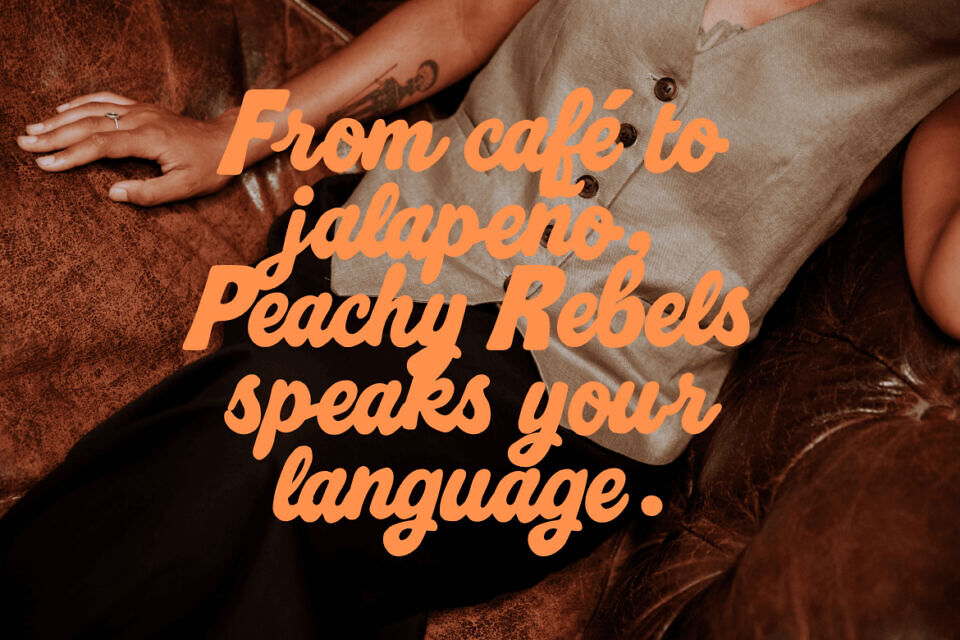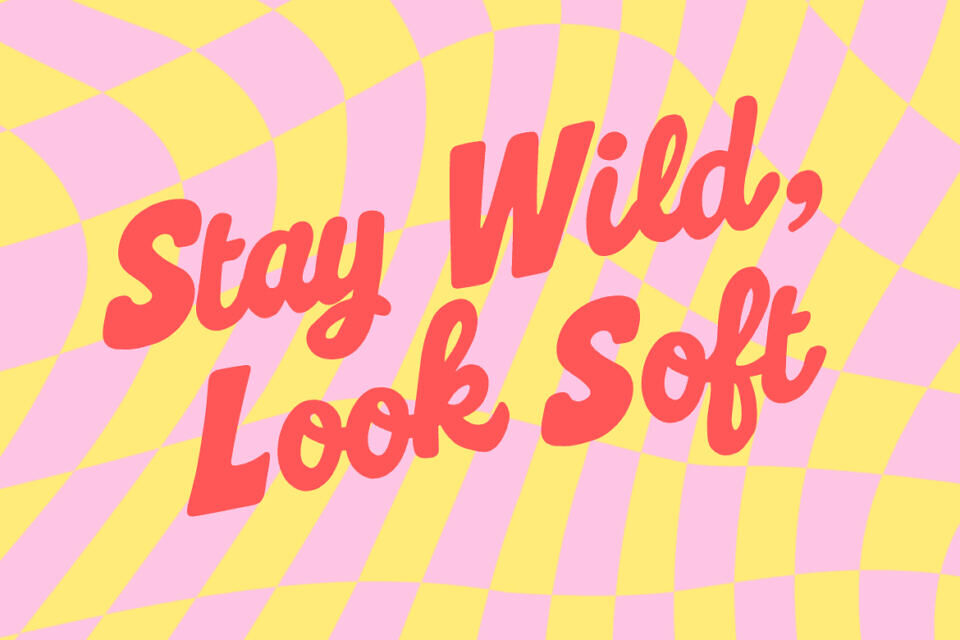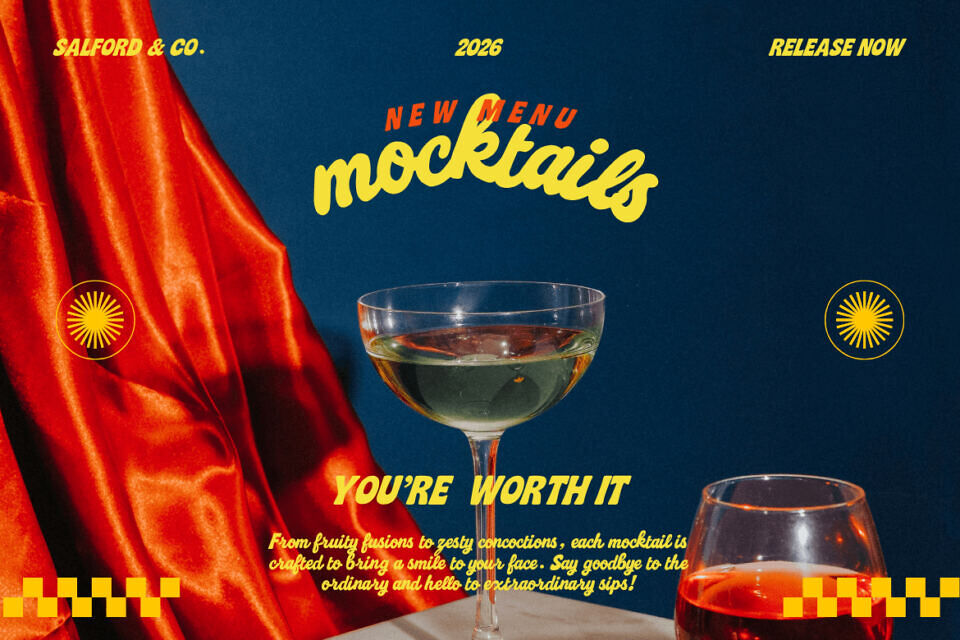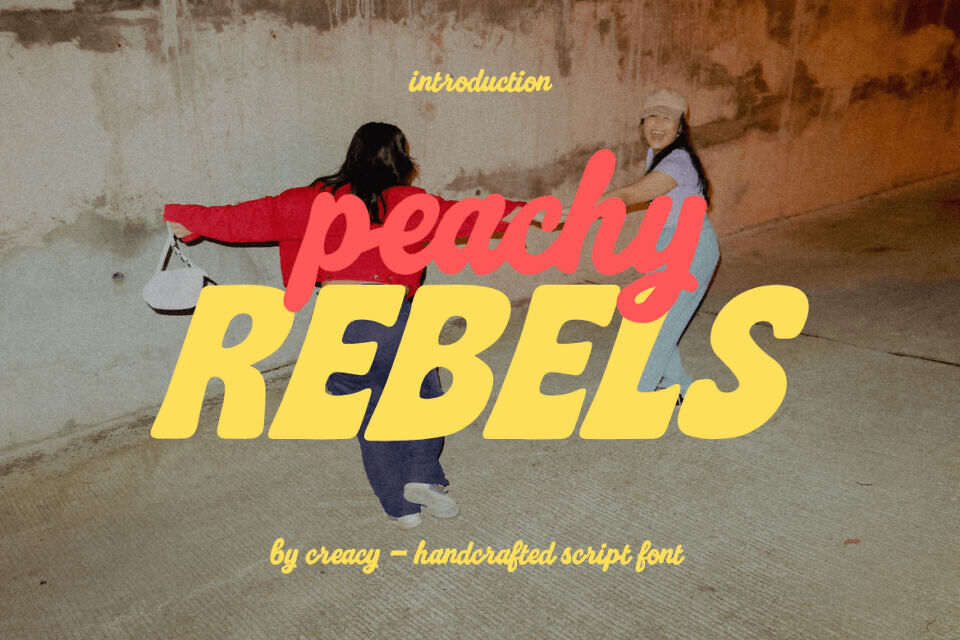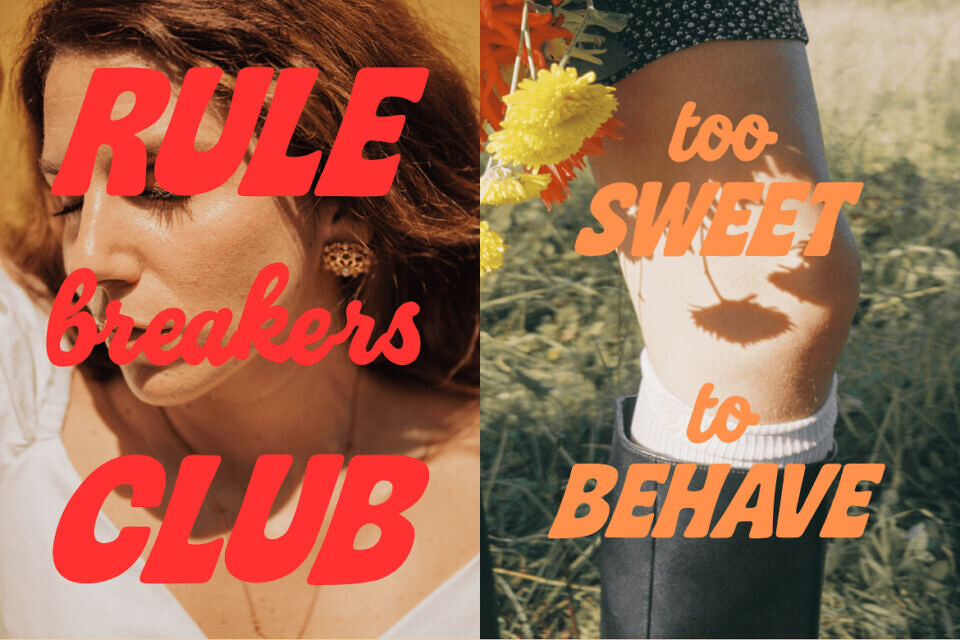
Peachy Rebels Font
Peachy Rebels is a handcrafted script font bursting with playful energy and bold retro charm. Blending script curves with strong sans elements, it captures a rebellious yet nostalgic aesthetic perfect for youth-focused branding. Ideal for streetwear logos, snack packaging, event posters, and editorial layouts, Peachy Rebels delivers standout personality across digital and print.
Featuring script lowercase, all-caps sans, numerals, punctuation, and multilingual support, this versatile typeface ensures expressive, dynamic results. Designed for creative campaigns, social media, and merchandise, it brings attitude and originality to every project.